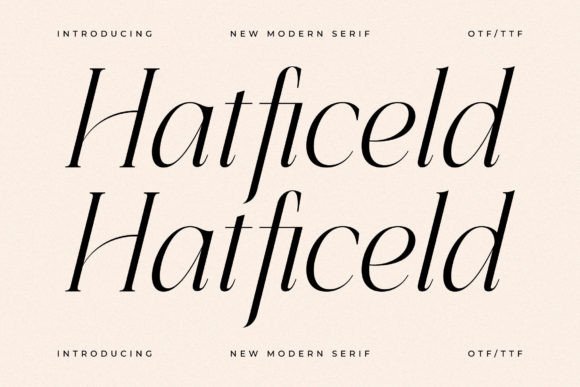
Journey into the realm of elegance with Hatficeld, the quintessential serif font that exudes sophistication and charm. Created by the talented Storytype Studio, Hatficeld effortlessly blends timeless beauty with a modern twist, making it the perfect choice for a plethora of design projects.
With its graceful curves and sharp serifs, Hatficeld effortlessly commands attention, leaving an indelible mark on your audience. This font family is a masterpiece of versatility, seamlessly adapting to various creative endeavors, from wedding invitations that whisper romance to eye-catching social media posts that spark engagement.
Immerse yourself in the boundless possibilities of Hatficeld. Craft stunning logos that exude professionalism and memorability. Unleash your creativity in designing brochures, flyers, and posters that capture the essence of your brand. Transform your website into a visual symphony with Hatficeld's elegant typography, leaving a lasting impression on every visitor.
Hatficeld's allure transcends mere aesthetics; it evokes emotions and speaks to the heart. Its refined strokes convey a sense of luxury and sophistication, while its intricate details hint at a rich history and enduring legacy. Whether you're expressing heartfelt sentiments in a personal letter or crafting a captivating marketing campaign, Hatficeld will elevate your words, adding a touch of grace and eloquence.
Don't settle for ordinary fonts that fade into oblivion. Embrace the brilliance of Hatficeld, a font that speaks volumes without uttering a single word. Let its timeless beauty enhance your creative projects, leaving an unforgettable impact that resonates with your audience. Embrace Hatficeld and elevate your designs to new heights of sophistication and charm.